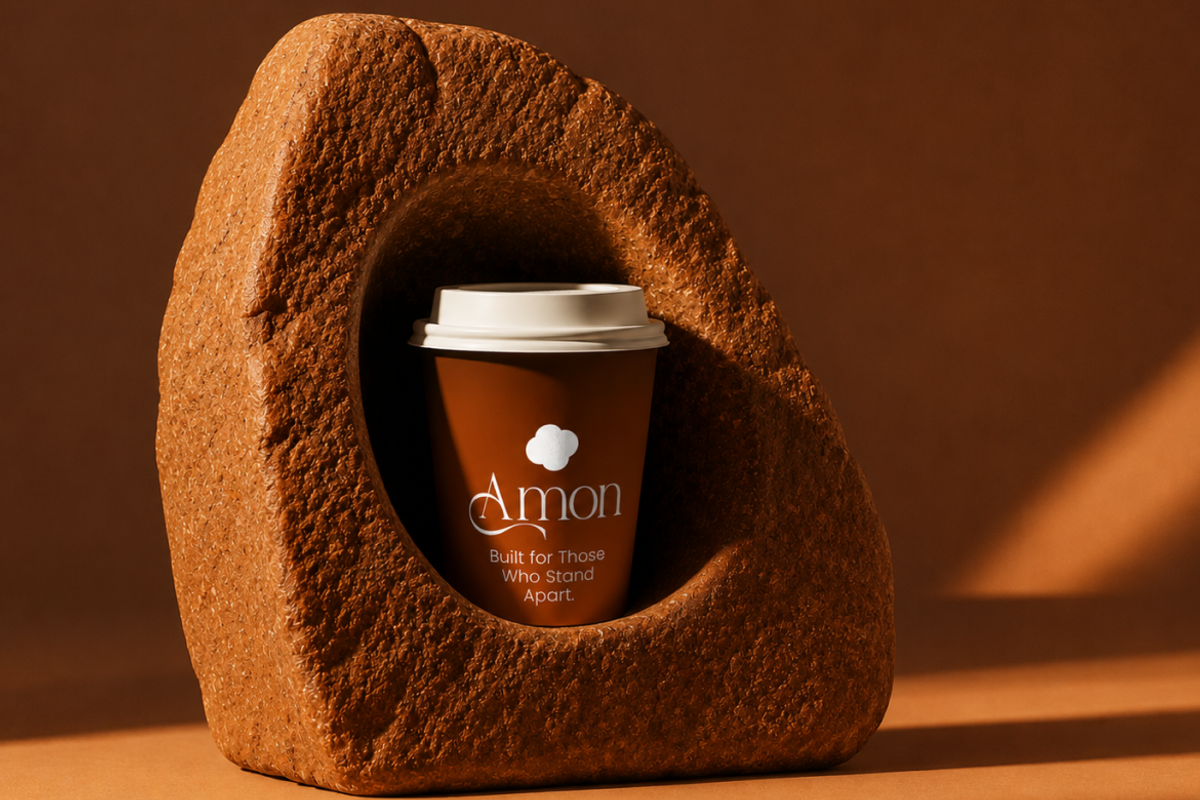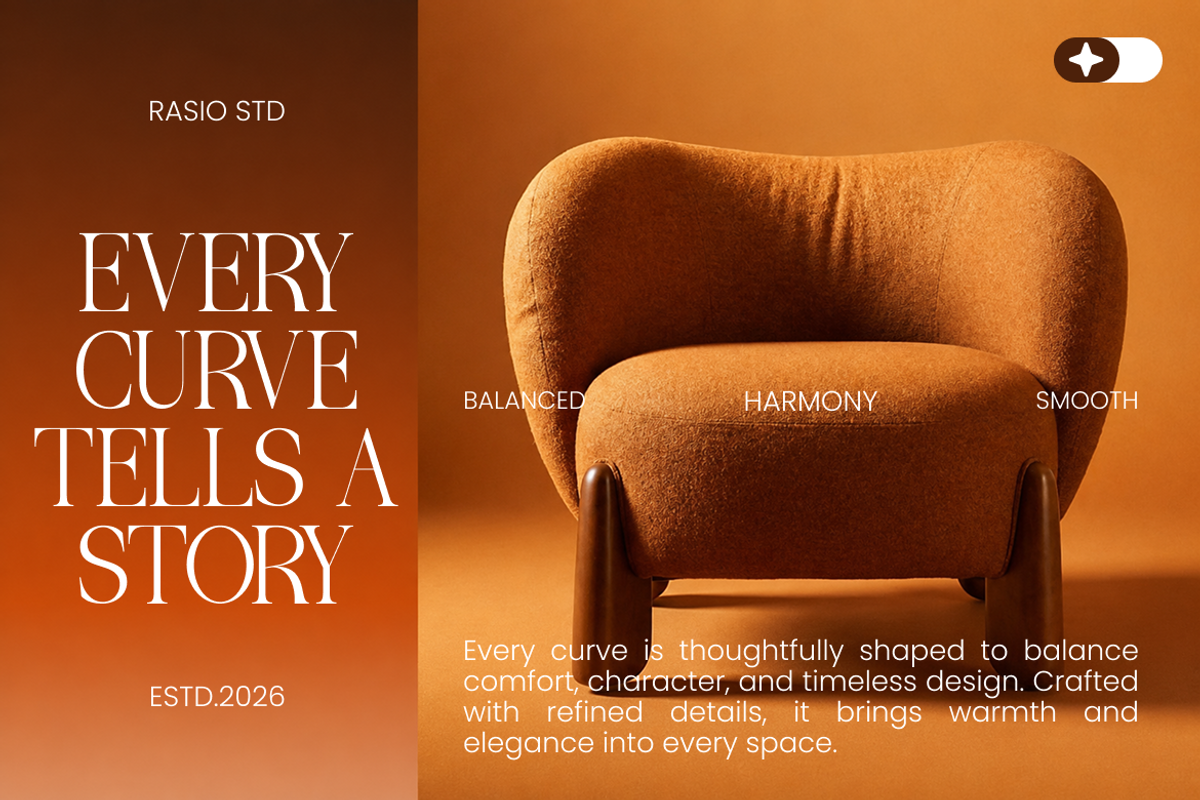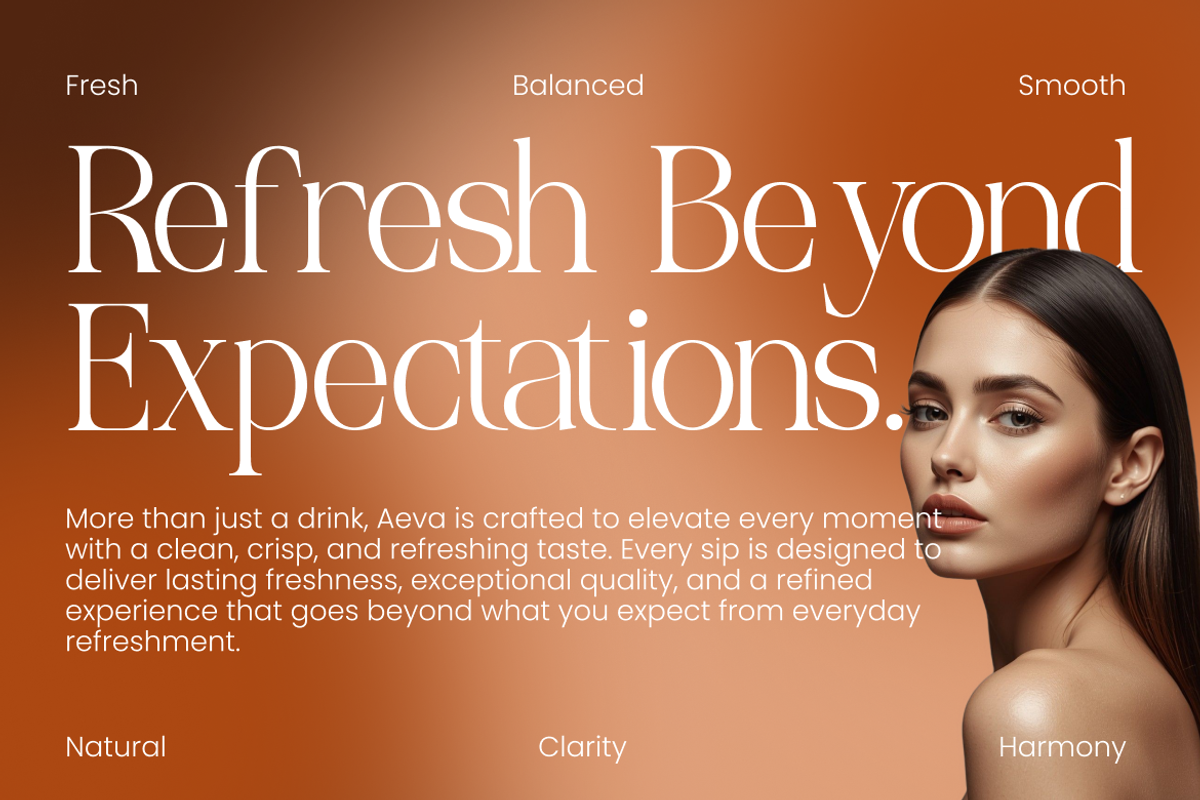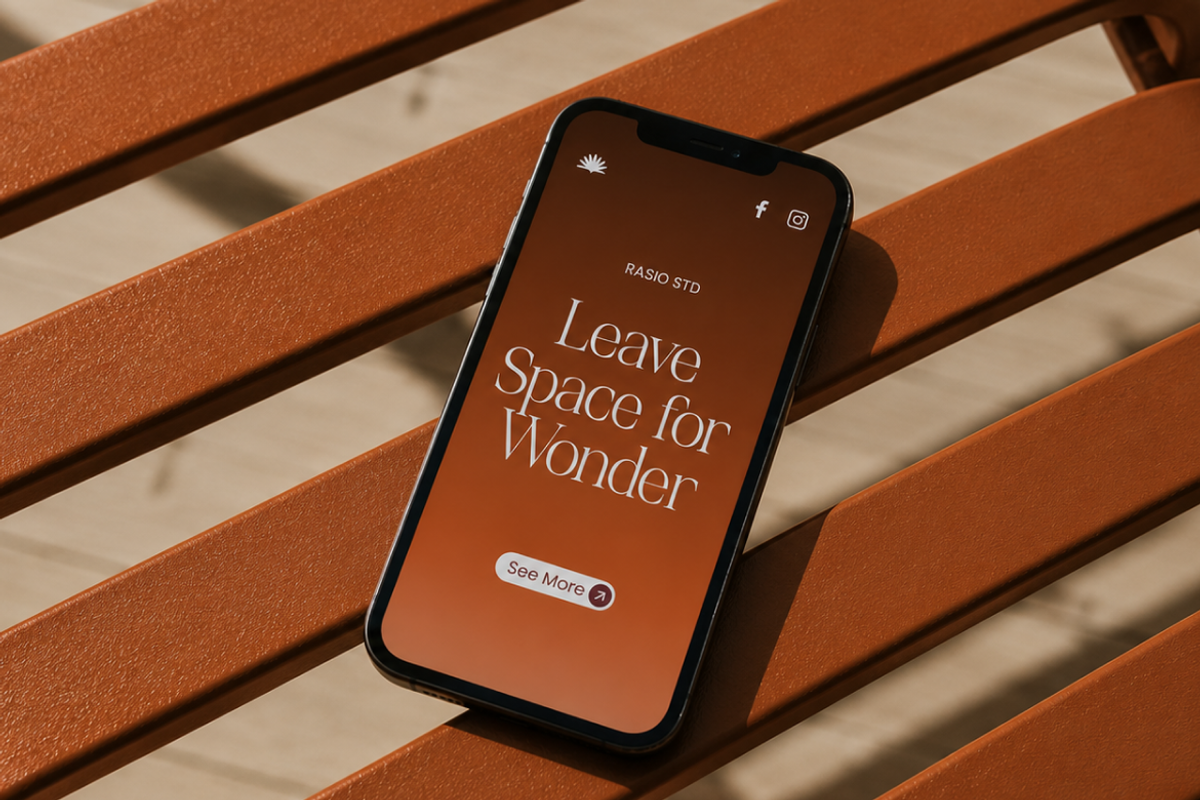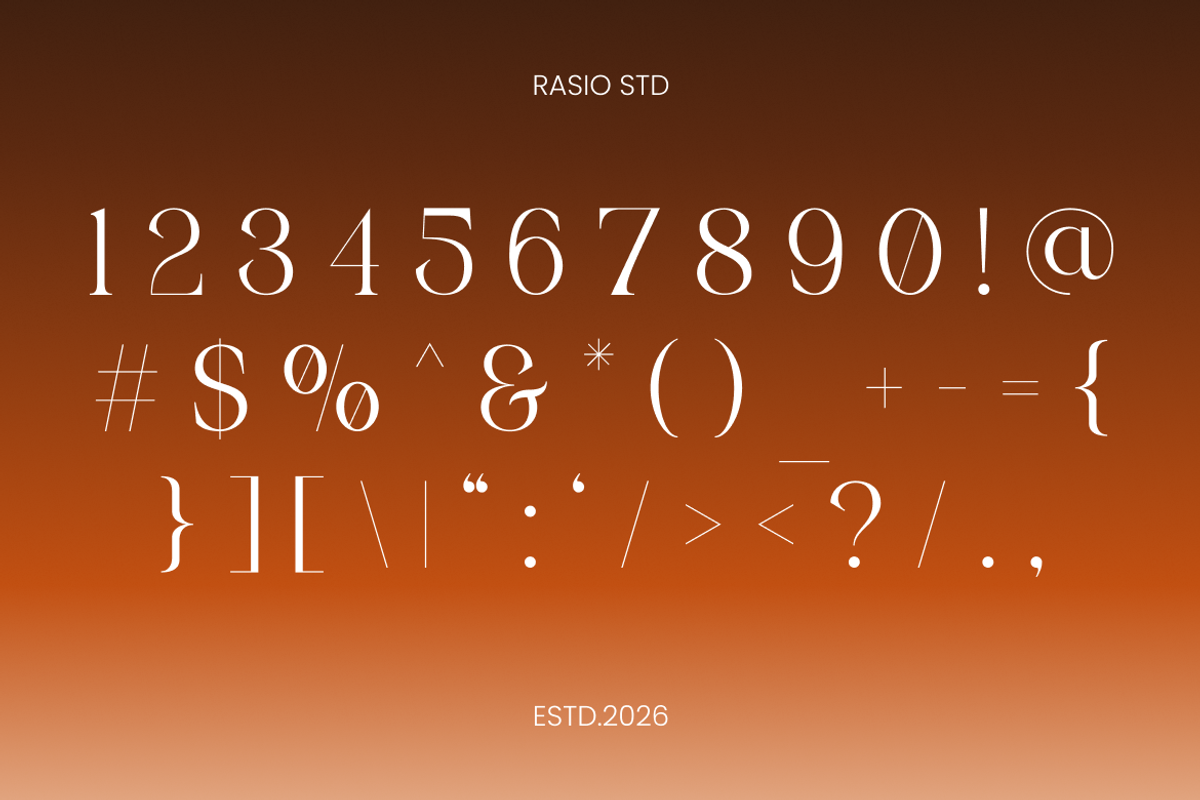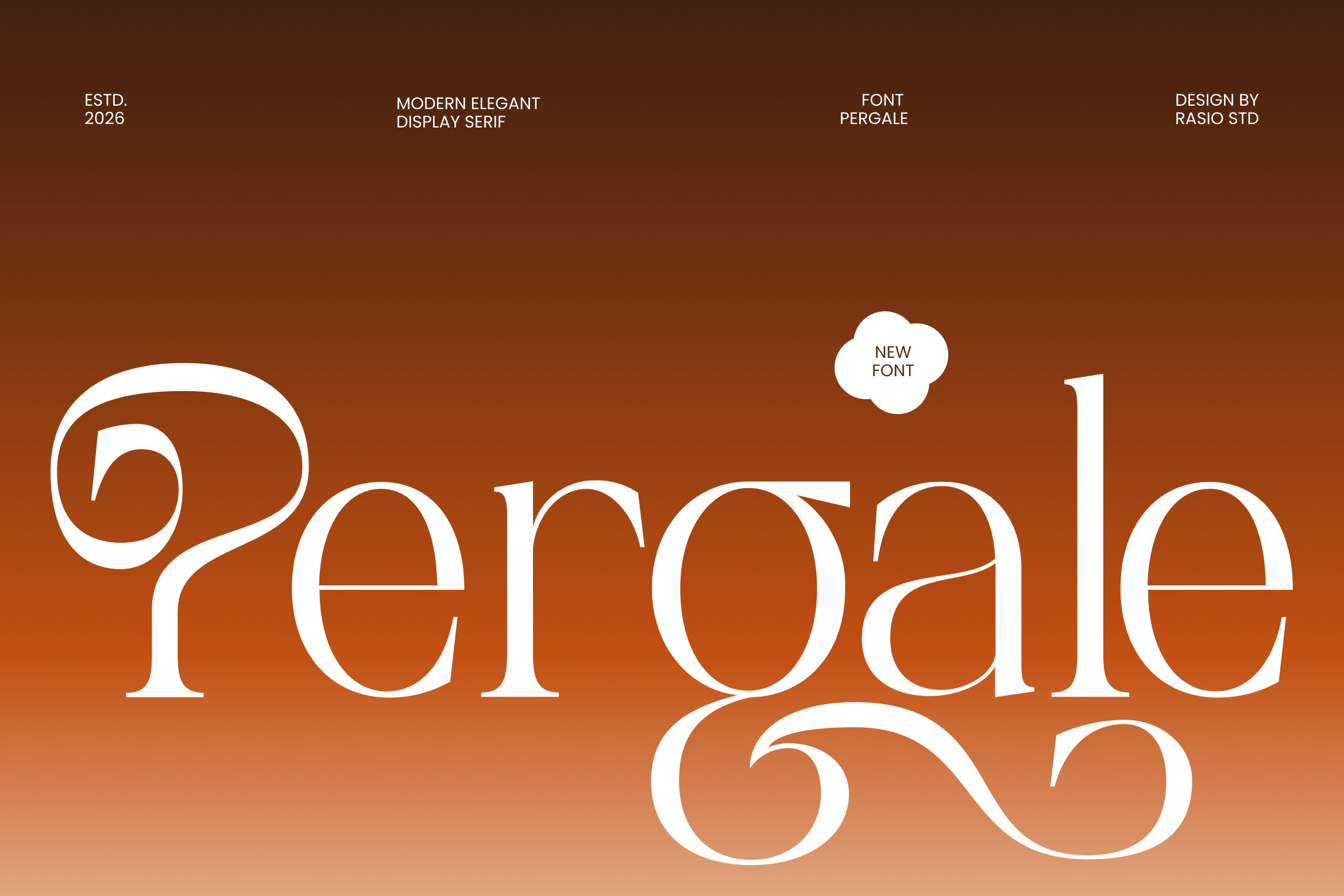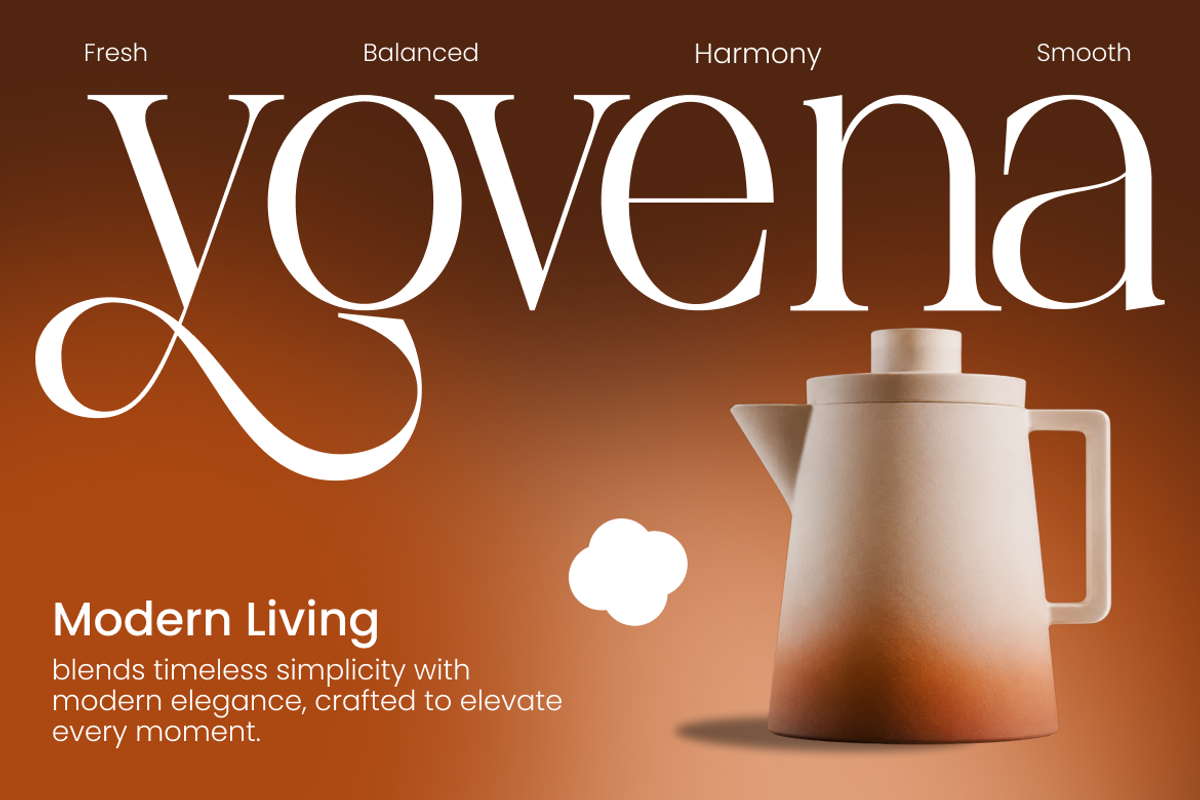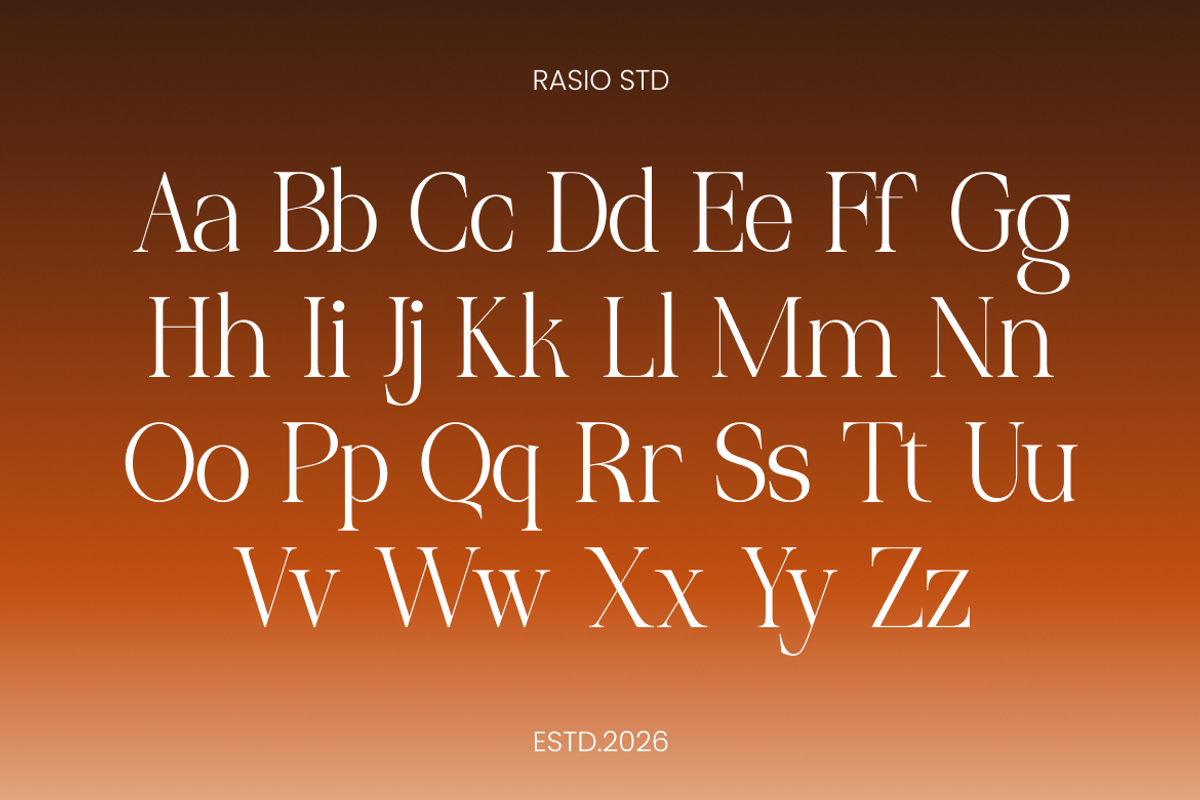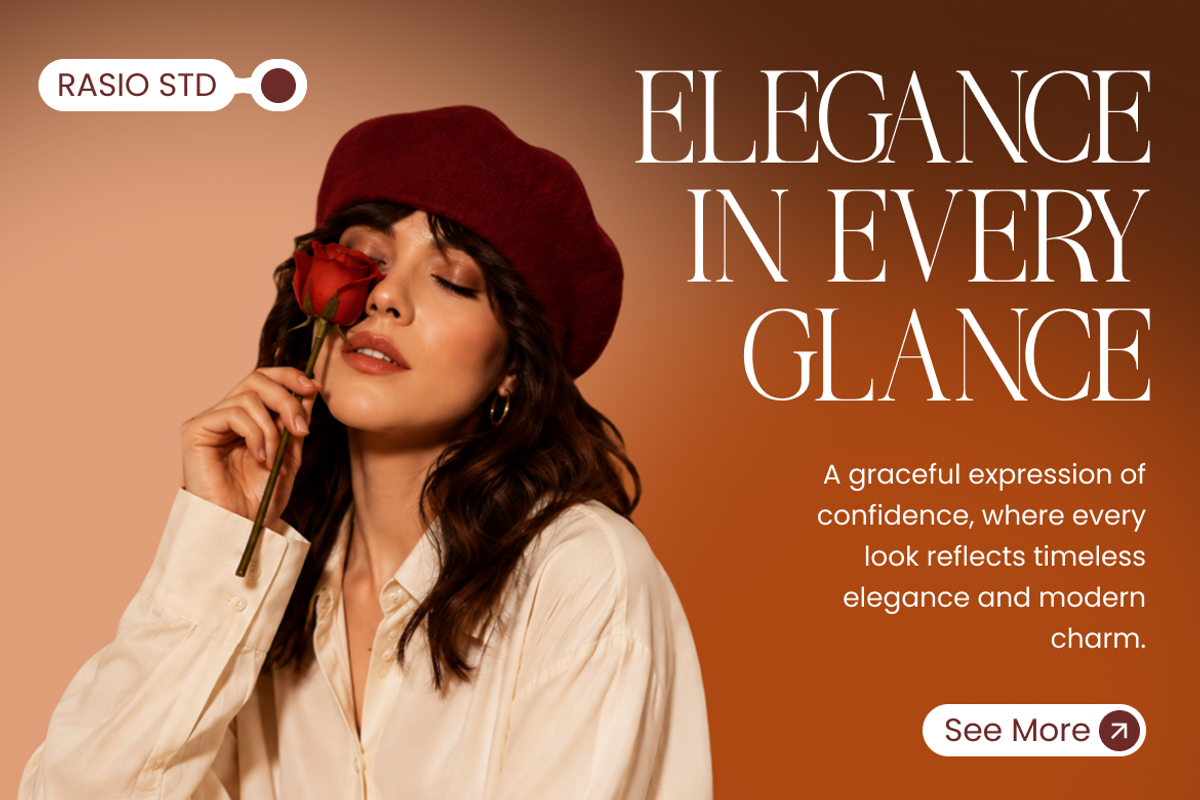
Pergale Modern Elegant Serif Font
Pergale Modern Elegant Serif Font is a modern display serif crafted to bring refinement and personality to large-format typography. Built with slender stems, graceful curves, and high-contrast strokes, the typeface delivers a sophisticated presence while maintaining clean readability. Delicate terminals and sweeping ornamental swashes create elegant movement throughout each word, giving titles and logos a distinctive character without sacrificing balance or clarity. Carefully designed ligatures and alternate characters provide additional creative flexibility, allowing designers to build custom-looking headlines, monograms, and brand identities with a polished, handcrafted feel.
Whether paired with minimalist layouts, fashion photography, textured backgrounds, or classic print-inspired compositions, Pergale adapts effortlessly to a wide range of creative directions. It works beautifully for magazine covers, boutique logos, cosmetic packaging, restaurant branding, wedding stationery, book covers, invitations, certificates, product labels, and social media visuals. With its combination of timeless serif structure and expressive decorative details, Pergale provides designers with a versatile display typeface that creates memorable typography for both print and digital applications.
High-contrast serif construction for a refined editorial appearance
Gracefully extended swashes that create expressive headline compositions
Elegant high-waist letterforms with balanced proportions and smooth transitions
Delicate curved terminals that add movement without compromising readability
Carefully crafted ligatures and alternates for distinctive typography
Luxury brand identities with refined editorial aesthetics
Fashion campaigns, beauty branding, and premium product packaging
Magazine covers, book titles, and editorial layouts with sophisticated typography
Wedding stationery, invitations, certificates, and elegant event materials
Boutique logos, jewelry branding, perfume labels, and cosmetic collections
Supports numerals, punctuation, and extensive symbol set
Make every word feel distinctive with Pergale, a display serif crafted for sophisticated visual